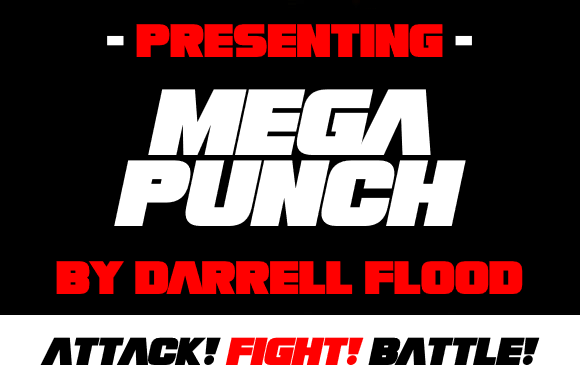
Behold Megapunch Font, the font that packs a punch! Crafted by the masterful Dadiomouse, Megapunch is a bold, tight, and strong sans serif font, ready to elevate your designs to new heights.
Immerse yourself in the world of epic battles and street fight themes with Megapunch as your trusty companion. Its forceful presence demands attention, making it the perfect choice for titles, headlines, and any element that craves impact.
But Megapunch is not just a one-trick pony. Its versatility extends far beyond the realm of titles. Use it to create logos that exude strength and power, posters that scream for attention, or social media graphics that cut through the noise.
Let Megapunch be your secret weapon, the font that transforms ordinary designs into extraordinary masterpieces. Its well-crafted characters, meticulously designed to convey strength and impact, will leave a lasting impression on your audience.
Don't settle for fonts that blend into the background. Choose Megapunch, the font that punches above its weight, leaving your designs with a knockout impact.